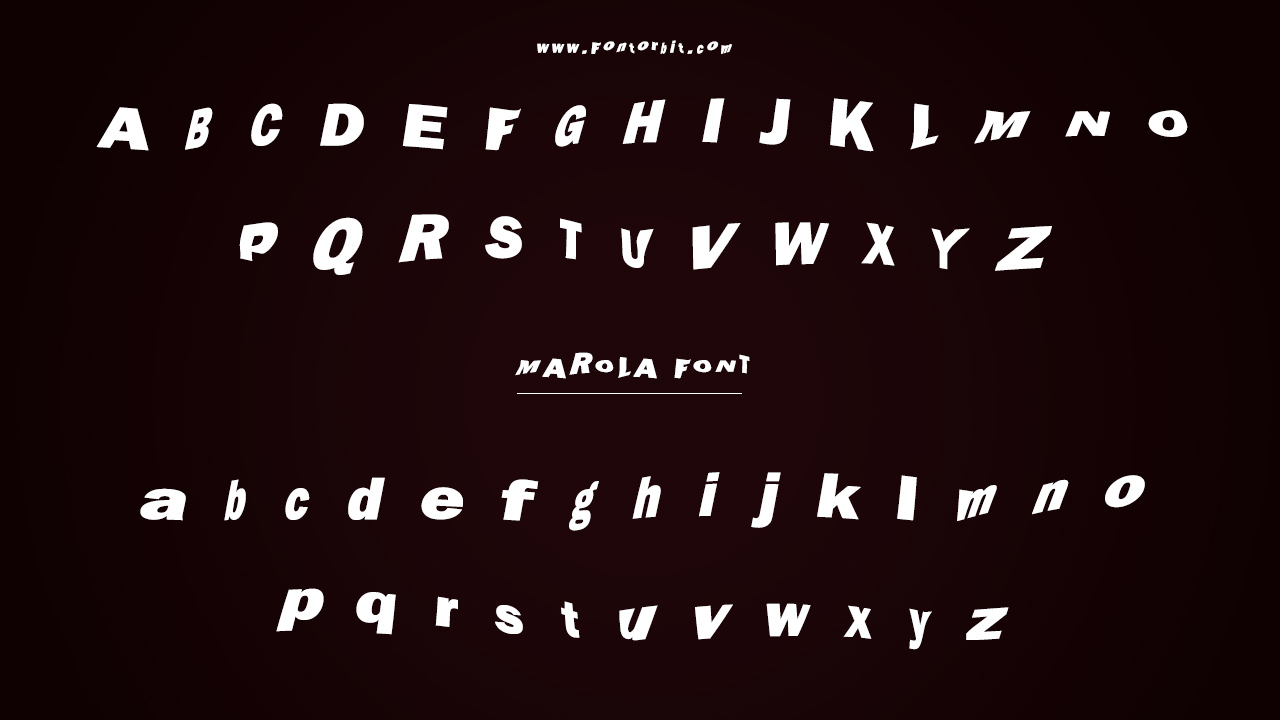
The Marola Font, designed by Nú-Dës, is a distinctive decorative typeface that belongs to the Fancy > Distorted category. Known for its bold, irregular letterforms and artistic style, this font is perfect for creative projects that demand attention-grabbing typography. With its free licensing for personal and commercial use, Marola Font has become a go-to choice for designers looking for an edgy and unique aesthetic.
The Marola Font offers a bold and irregular design with 139 glyphs and 142 characters. It is available in TrueType Font (TTF) format, ensuring compatibility with both digital and print media. The font supports various Unicode character blocks, including Basic Latin, Latin-1 Supplement, and Spacing Modifier Letters, making it suitable for diverse design projects.
Marola Font: Using Occasions
The Marola Font is an excellent choice for creative and bold designs. Common applications include:
- Logos: Ideal for brands seeking a distorted, artistic vibe.
- Posters: Great for event advertisements or creative art posters.
- Typography Projects: Adds a unique touch to book covers, banners, or experimental text designs.
- Web Design: Perfect for entertainment or pop culture-themed websites.
- Printed Materials: Suitable for flyers, brochures, or packaging.
- Digital Graphics: Enhances visuals created with tools like Adobe Illustrator.
Marola Font Found In Use
The distinctive and bold style of Marola Font makes it a favorite for designers creating edgy or artistic projects. Its use is prevalent in:
- Branding for alternative or modern art projects.
- Bold headlines in creative magazines.
- Decorative elements in event signage.
- Online graphics for social media or advertising campaigns.
The Marola Font stands out as a versatile and decorative typeface, ideal for creative and bold design projects. Its artistic distortion and free licensing make it an accessible choice for personal and commercial use alike. Whether designing logos, posters, or digital graphics, Marola Font adds a distinctive flair that resonates with contemporary and alternative aesthetics.
The Marola Font is a decorative typeface designed by Nú-Dës. It falls under the Fancy > Distorted category and is widely appreciated for its bold and artistic style. The font is available in Marola Regular, making it an ideal choice for creative projects requiring unique typography.
Marola Font is commonly used in:
- Logos for brands seeking bold or creative design.
- Posters to grab attention with its distinctive style.
- Design projects, including printing, packaging, and digital graphics.
- Websites with a modern or alternative theme, especially entertainment-related.
The character map of Marola Font includes characters from Basic Latin, Latin-1 Supplement, and Spacing Modifier Letters Unicode blocks. These characters make it versatile for various supported languages and text styles.
While modern fonts often focus on simplicity and elegance, Marola Font embraces a more bold and artistic approach, making it a standout choice for designers seeking a fancy or unconventional typeface for their design projects.
- Design Style: Bold, distorted, and artistic.
- Use Cases: Ideal for logos, posters, and other bold design projects.
Yes, Marola Font pairs well with 3D fonts for dynamic designs and can complement typewriter fonts for unique contrasts in modern fonts or themed projects, enhancing creativity in both digital and print mediums.